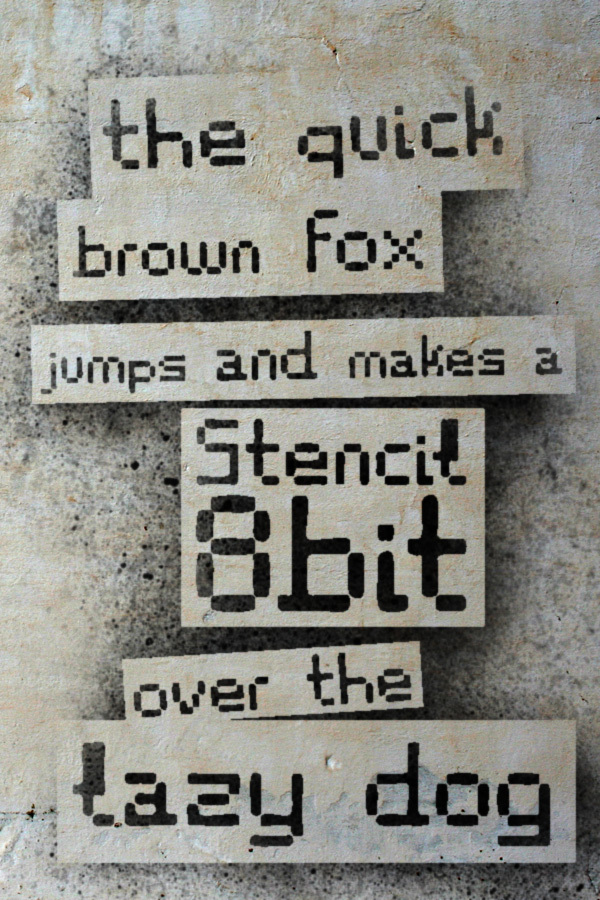
Stencil 8bit is a free eroded digital display font with rounded, uneven strokes, blunt ends, and deliberate gaps. Tall letters mix wide open breaks with compact horizontal bars for a handmade glitch effect.
It can create a scrappy arcade title for game graphics, posters, and music merchandise. Broken forms also suit tech packaging, acting almost like circuit-inspired emblems. The playful roughness speaks most directly to indie game, electronic music, and youth-culture audiences.
Stencil 8bit
Pisto Casero
Gilberto Moya